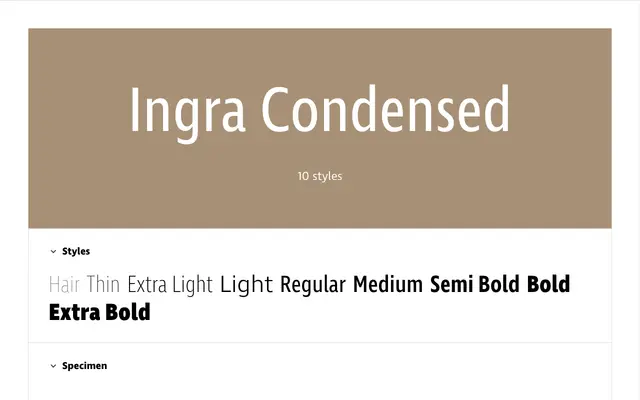
Ingra Condensed
A condensed humanist sans with ten weights, designed as one of three purposefully drawn widths in a larger editorial type system.
Ingra Condensed is built for information density rather than creative expression, with near-monolinear strokes, a tall x-height, and cleanly aligned terminals that keep counters open at small sizes. It sits within a three-width family alongside Ingra Regular and Ingra Wide, with each width drawn as a distinct cut rather than a mechanical compression. OpenType support is thorough, covering small caps, four figure styles, superior and inferior numerals, ordinals, pictograms and an extensive range of stylistic alternates across sixteen sets.
Ingra Condensed is described explicitly as an engineered humanist sans-serif with near-monolinear strokes, a generous x-height, and horizontally and vertically aligned terminals — hallmarks of the humanist sans genre.